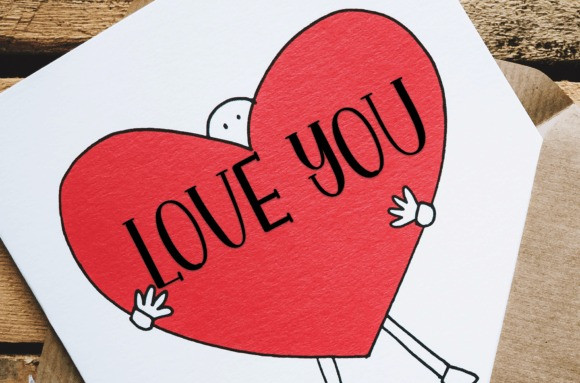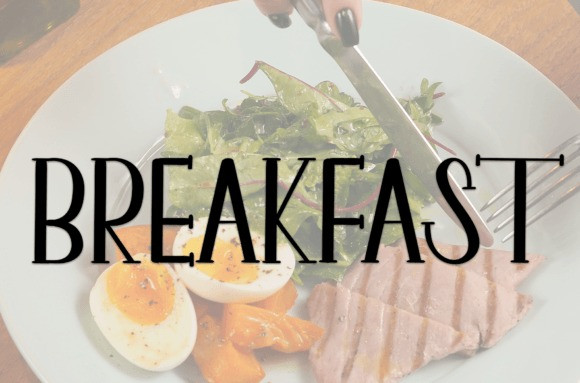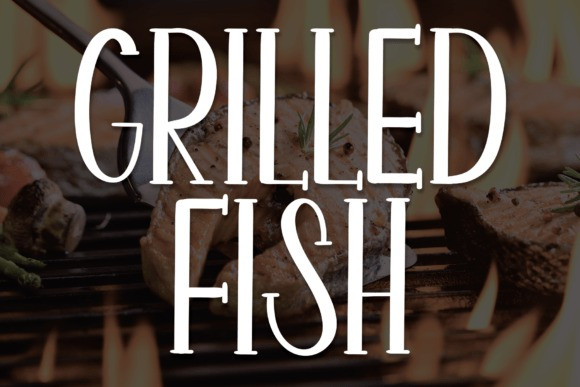
Grilled Fish Font
Grilled Fish Font is a sweet and friendly handwritten display font. Creative and cute, this font is ideal for writing wedding invitations, cards, or any other design that might need a fun touch!